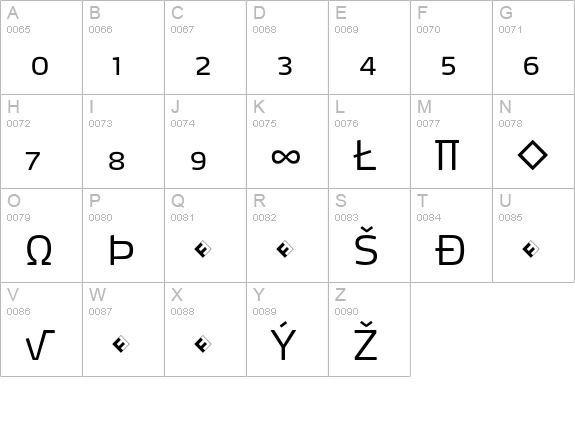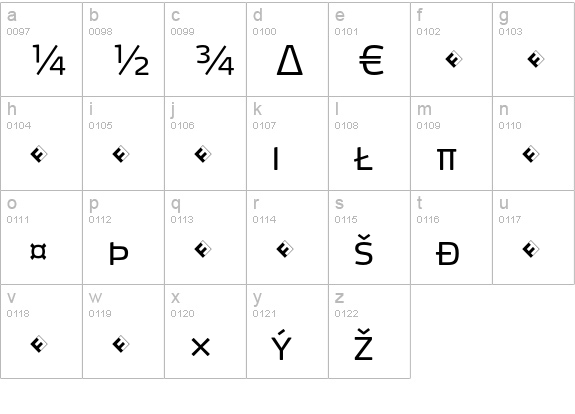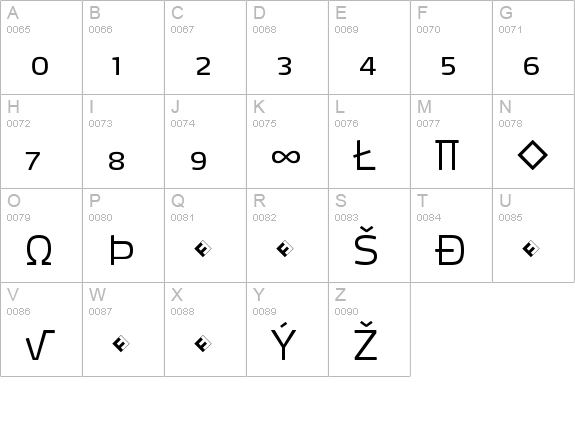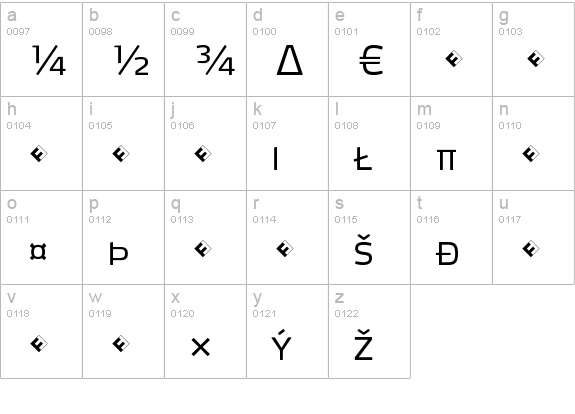
Max-LightSCExpert Font Details
Introducing Max-LightSCExpert font, a sleek and modern typeface designed to elevate your projects with its elegant and sophisticated appearance. This font exudes professionalism and style, making it perfect for a wide range of design applications. With its slender and refined letterforms, Max-LightSCExpert adds a touch of sophistication to any project, whether it be for branding, editorial design, or web graphics. What sets Max-LightSCExpert apart is not only its striking aesthetics but also its versatility. This font can seamlessly adapt to various design styles and themes, making it a valuable addition to any designer's toolkit. Whether you're working on a minimalist layout or a bold and dynamic composition, Max-LightSCExpert is sure to enhance your designs with its clean and modern look. The best part? Max-LightSCExpert is completely free to download at FontsMarket.com, allowing you to access this premium font without any cost. Simply head over to FontsMarket.com and add Max-LightSCExpert to your collection to elevate your design projects with its impeccable style and sophistication. Don't miss out on this opportunity to enhance your designs with the timeless elegance of Max-LightSCExpert font.